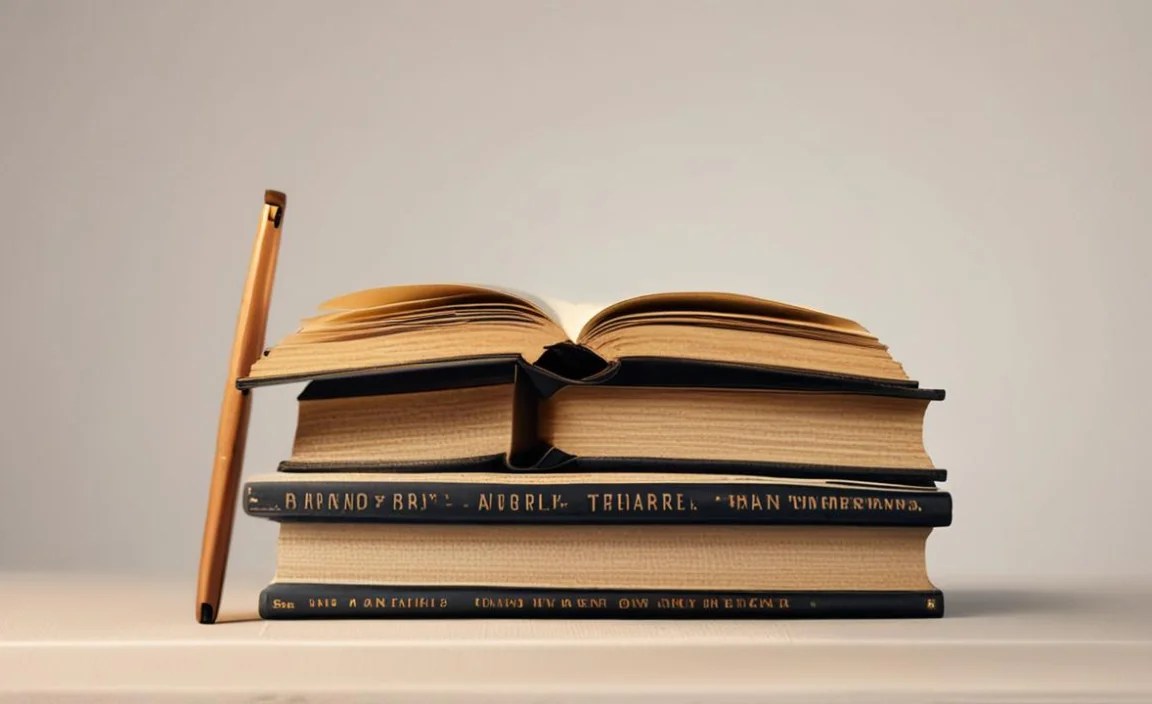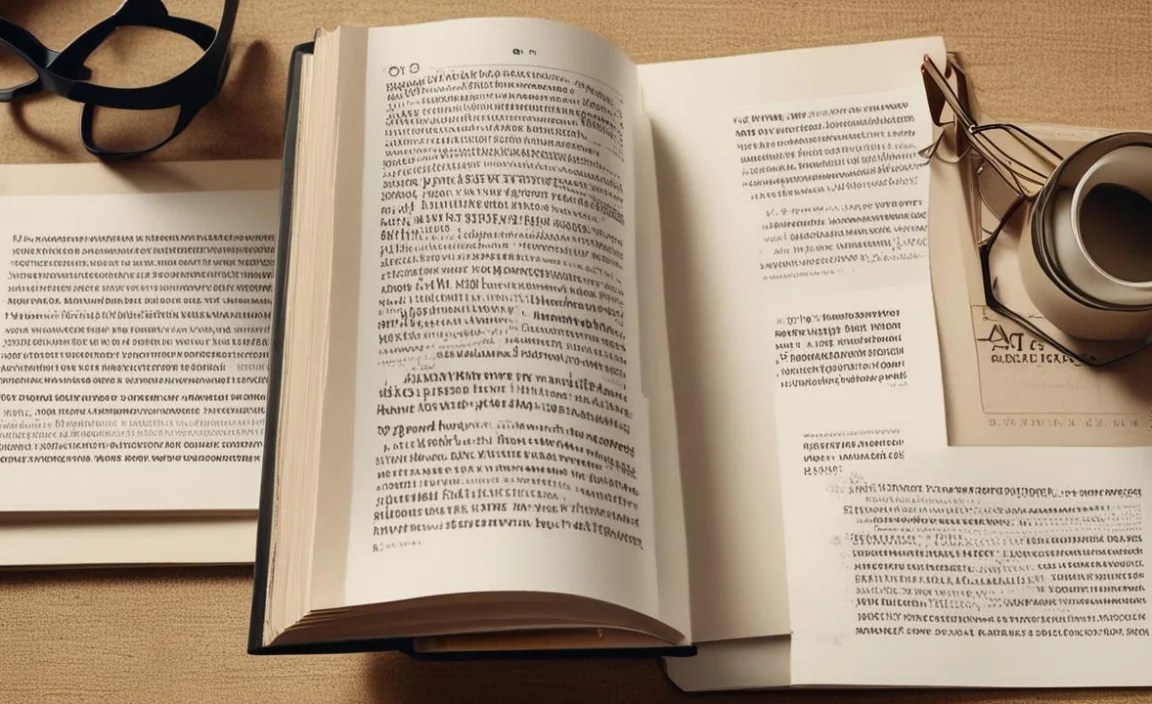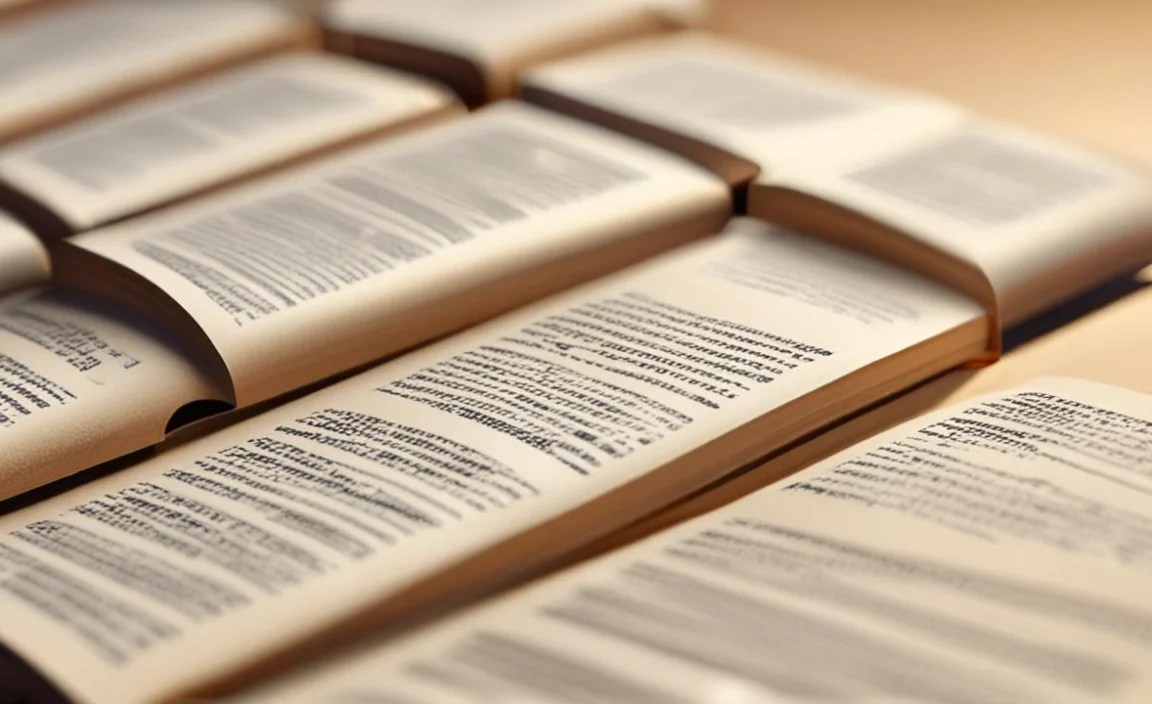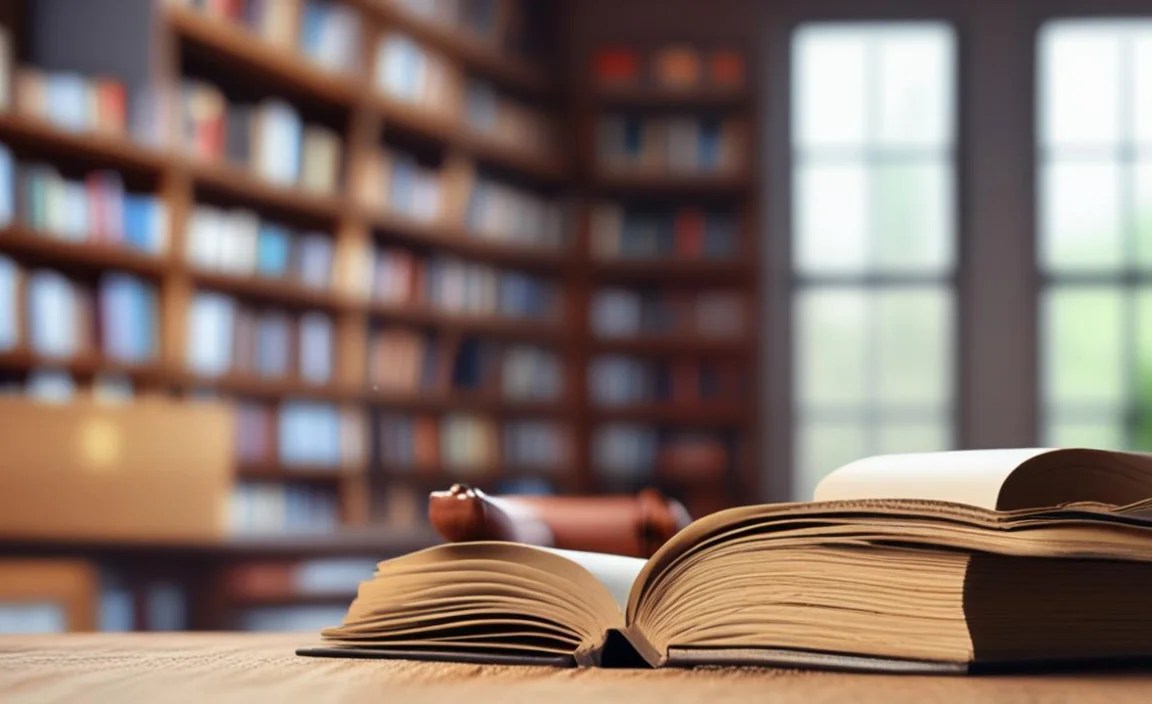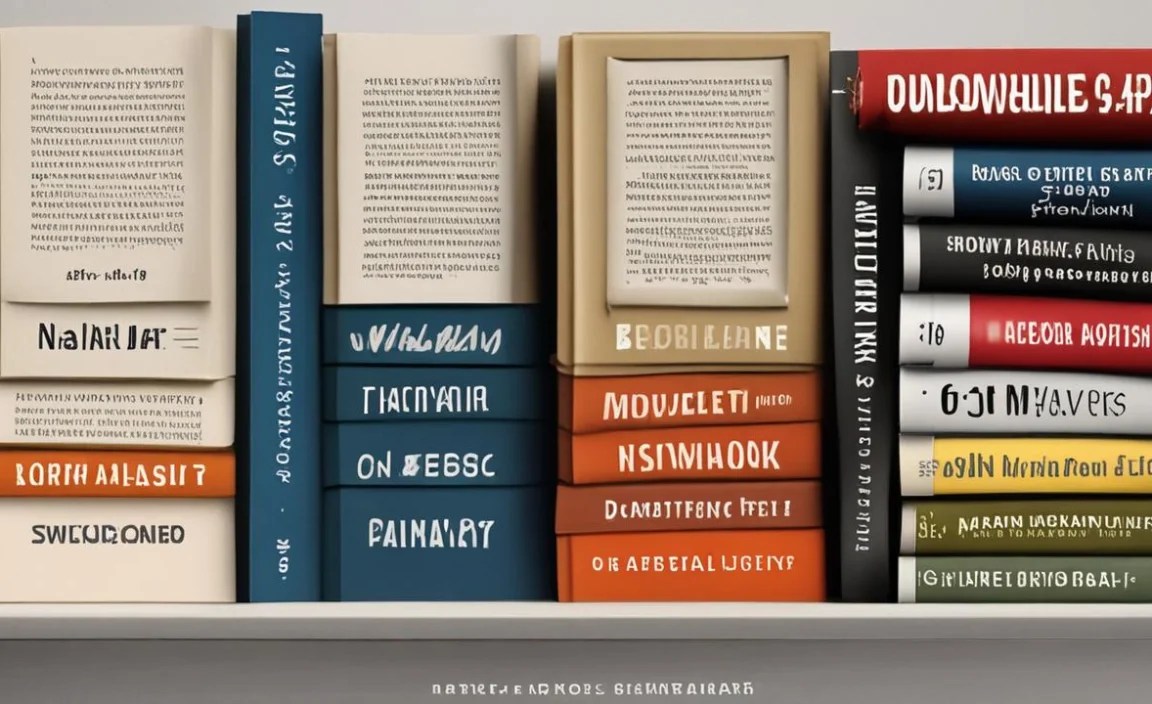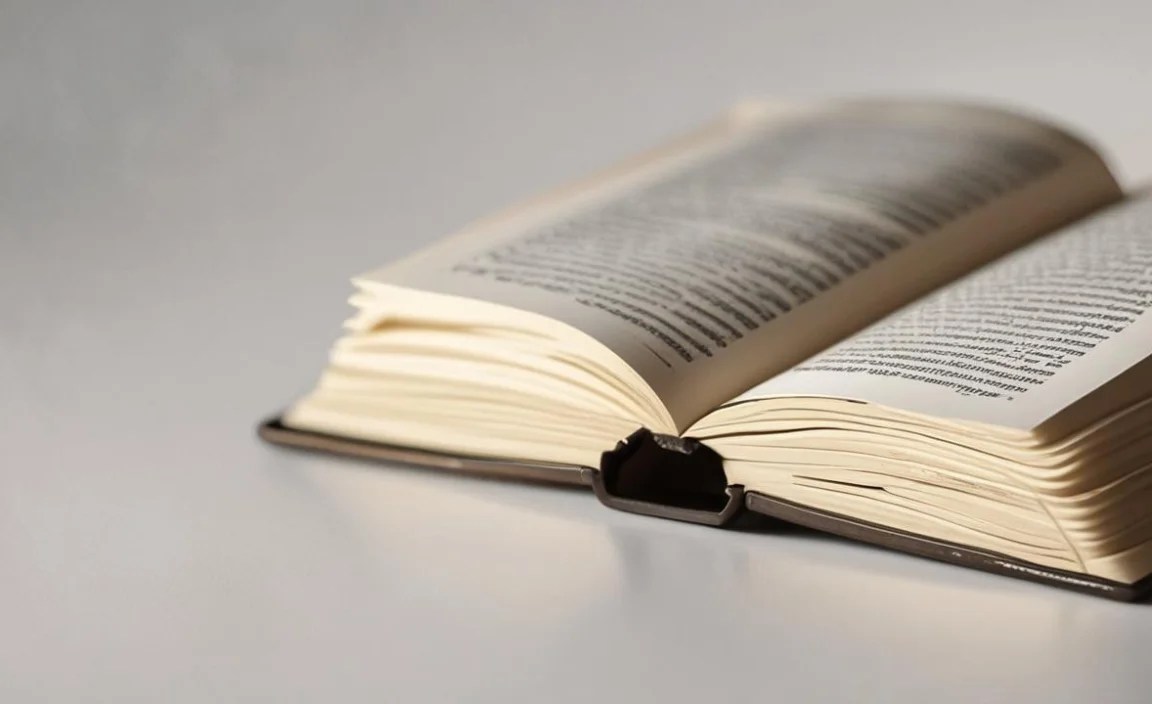
In every designing of a book, the font selection plays a critical role in creating an enjoyable reading experience. Whether you are writing a fiction book, a nonfiction book, or even a children’s book, choosing the right font is essential for readability and overall book design.
There are many different fonts to choose from, and each serves a distinct purpose. In this guide, we’ll take you through the most commonly used fonts in books, explore the importance of font style, size, and selection, and help you make the perfect choice for your book.
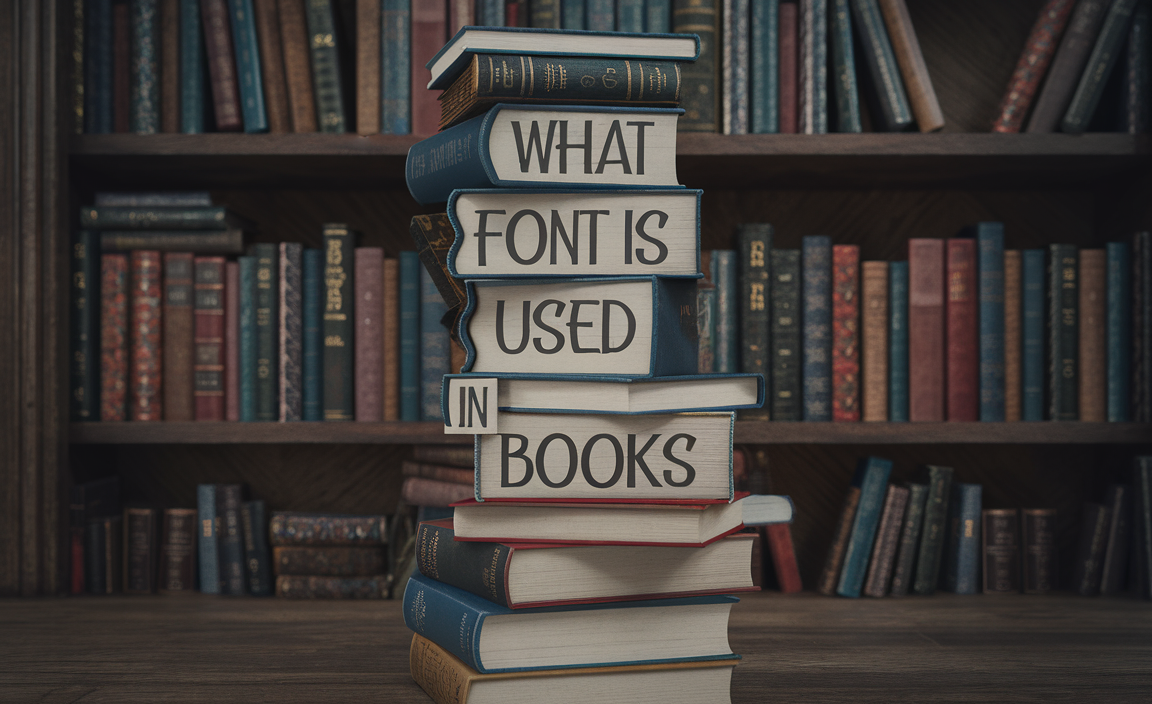
Let’s Find Out Which Are In The list of Best Fonts for Books
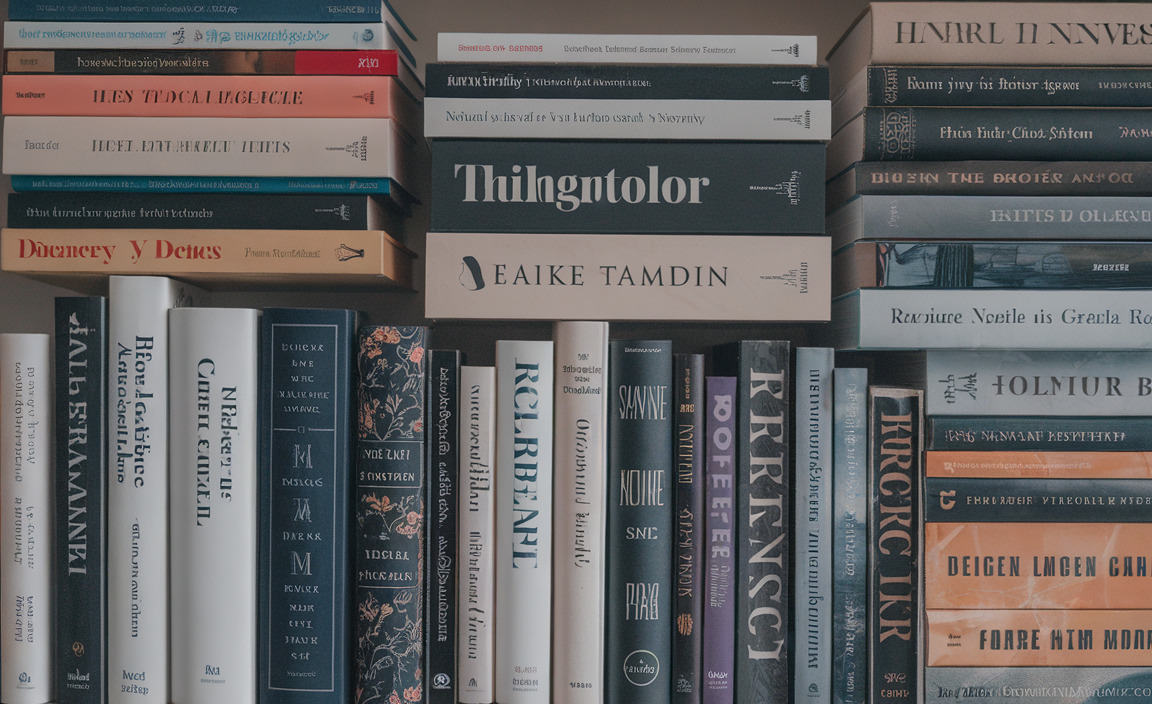
Choosing the best font for your book comes down to readability, style, and appropriateness for your genre. The right font enhances your book’s layout and ensures your readers can enjoy a seamless reading experience.
The best fonts for books often come from two main categories: serif fonts and sans-serif fonts. Let’s dive into both:
Serif Fonts
Serif fonts are the classic choice for body text in print books. These fonts have small lines or decorations (serifs) at the ends of letters. These little embellishments help guide the reader’s eye across the page, making serif fonts ideal for long-form reading. Serif typefaces are traditional, formal, and highly readable, which is why they are the standard font for most printed books.
Some of the most popular serif fonts used in books include:
- Times New Roman
Times New Roman is one of the most popular fonts for print books. It’s a classic serif font with clear, easy-to-read letterforms. Times New Roman is handy for both fiction and nonfiction books, especially for manuscripts submitted to publishers or for official documents. - Book Antiqua
Book Antiqua is another serif font that is frequently used for books. It is slightly more elegant than Times New Roman and offers a comfortable reading experience, especially for fiction books and printed books. Its readability makes it an excellent choice for body text. - Century Schoolbook
Century Schoolbook is a classic serif font specifically for reading. It is common in books for young readers and really is one of the best fonts for children’s books. This font is clear, highly legible, and works well in smaller font sizes for print books. - Garamond
Garamond is another classic serif font for print books. It has a historical feel and provides a more artistic and elegant aesthetic. Garamond is ideal for both fiction books and nonfiction books, especially those that want to convey sophistication. - Georgia
Georgia is a modern serif font with clarity and legibility, even in smaller font sizes. Many publishers often used this font in ebooks and printed books, as it’s a versatile choice for book layout design.
Sans-Serif Fonts
Sans-serif fonts are typically used for headings, titles, and other display text. These fonts lack the small lines at the ends of the characters, giving them a cleaner, more modern appearance. While sans-serif fonts are less common for body text in print books, they are ideal for book covers and certain sections of your book layout.
Popular sans-serif fonts used for book titles, headings, and display purposes include:
- Roboto
Roboto is a modern sans-serif font that is highly versatile and easy to read. It often shines in headers and titles in printed books or for the body text in ebooks. It has a contemporary look that suits many genres. - Open Sans
Open Sans is another modern sans-serif font that works well in book layout design. It’s clean and easy to read, making it a good choice for web fonts, book titles, and subheadings. - Helvetica
Helvetica is one of the most widely used sans-serif fonts in graphic design, and it also finds its place in book design. It’s particularly useful for modern books that need a minimalist and professional appearance.
Font Size and Book Layout
The font size used in your book is equally important as the font style. The correct font size ensures that your book remains legible, especially in print books.
For most printed books, a font size of 10–12 points is standard for the body text. If you’re designing a nonfiction book or a textbook, you may want to use a larger font size to accommodate the complexity of the material.
When choosing a font for your book, be sure to adjust the size accordingly to make sure it fits within your book layout and provides comfortable reading.
Best Practices for Font Selection
When it comes to selecting fonts for your book, here are some best practices to keep in mind:
- Readability: The font should be legible and easy to read for long periods of time. Stick to fonts with clear, distinct characters.
- Consistency: Choose a font family with multiple styles (regular, bold, italic) to create a cohesive layout. Keep the font style consistent for body text and use display fonts only for headings and titles.
- Appropriate Font Size: Adjust your font size to suit the type of book. For fiction and general text-heavy books, keep your font size between 10-12 points for body text. For children’s books, you may want to use larger font sizes, typically between 14-18 points.
- Spacing: The spacing between lines (leading) should be balanced to ensure readability. Too tight or too wide can strain the reader’s eyes.
- Typography for Book Covers: The font on your book cover plays a significant role in attracting readers. Opt for display fonts for the title, but ensure they are legible even at small sizes. Make sure the book cover font complements the book’s genre.
Google Fonts and Free Fonts
Many fonts require payment, but you can find free options online that work perfectly for book design. For example, Google Fonts provides a wide selection of free fonts licensed for both commercial and personal use. You can download and use fonts like Roboto, Merriweather, and Lora in your book editing software, such as Microsoft Word or Adobe InDesign.
Display Fonts and Decorative Fonts
Decorative fonts can add character to your book design but need to use it sparingly. These fonts are typically used for specific sections of the book, like a book title or unique chapter heading styles. They can be fun and creative, but too many decorative fonts can clutter your book’s layout and make it harder to read.
Choosing the right font for your book is an essential step in the design process. Serif fonts like Times New Roman, Garamond, and Georgia are widely used for body text because of their readability. For titles and headings, sans-serif fonts like Roboto, Helvetica, and Open Sans are great choices. Additionally, using display fonts and decorative fonts can help create an eye-catching book cover design and make headings stand out.
By considering the right font style, font size, and pairing fonts appropriately, you’ll ensure that your book looks professional and enhances the reading experience for your audience.
FAQ
1. What is the best font for book design?
Some of the best fonts for book design include Garamond, Times New Roman, and Georgia for body text, and Helvetica or Roboto for headings.
2. Can I use Google Fonts for my book?
Yes, Google Fonts offers many free fonts that can be used in both print and digital books. Some popular options include Roboto and Merriweather.
3. What is the ideal font size for books?
For print books, the ideal font size for body text is between 10-12 points. For children’s books, you may need larger sizes, typically between 14-18 points.
4. Can I use a calligraphy font in my book?
Calligraphy fonts are best for book titles or headings, but they are not recommended for body text due to readability concerns.
5. Why use a font that looks like Baskerville when you can just use Baskerville?
Using Baskerville ensures authenticity and the refined characteristics it brings to text. Fonts that mimic Baskerville may lack its balanced proportions and elegant stroke contrast, affecting the reading experience.
6. What font and size are good for a 6 x 9 book?
For a 6×9 book, use a serif font like Garamond, Baskerville, or Minion Pro in 11–12 pt size for readability, with line spacing set to 1.15 or 1.5.
7. Does the font license allow you to use the font for a book cover?
Font licenses vary; some allow commercial use, while others restrict usage. Check the licensing terms for commercial use and embedding, especially for book covers.
8. Why are serif fonts seen as more formal and sans serif not?
Serif fonts convey tradition and formality due to their historical use in printed works like books and newspapers. Sans serif fonts are modern and minimalist, often used for digital and casual designs.
9. What is the basic font size used for large print books and magazines?
Large print books typically use font sizes between 16 and 18 pt, ensuring readability for visually impaired readers. Magazines may vary depending on design needs.
10. Which font style and size should I use to write a novel in MS Word?
Use a serif font like Times New Roman or Garamond in 12 pt, with double spacing. This standard format is easy to read and preferred by publishers.
11. What does it mean when the font changes in a novel?
Font changes in a novel often signal shifts in perspective, timelines, or emphasis. They can differentiate characters’ thoughts, letters, or distinct narrative styles.
12. How do you choose the most appropriate font for a professional document?
Select a font that balances readability and professionalism, such as Times New Roman, Calibri, or Arial, and use 10–12 pt size. Match the font style to the document’s purpose and audience.